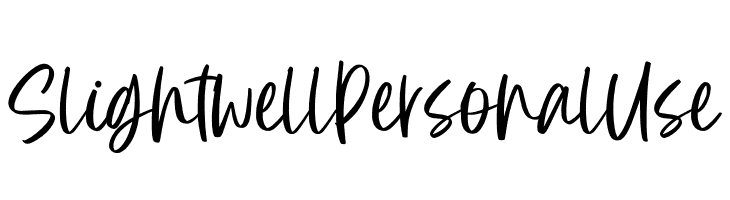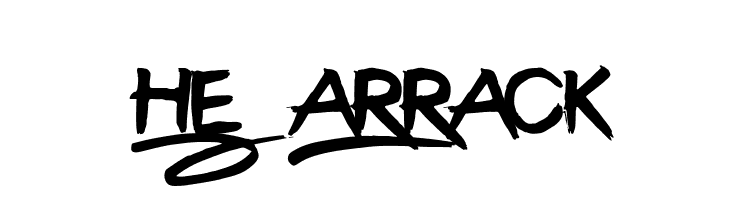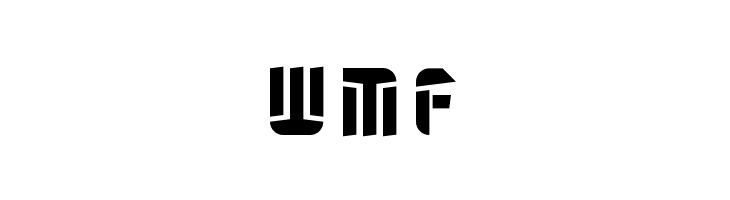
A bold, expressive font with a hand-drawn, graffiti-like style.
A playful, bold font with smooth, rounded characters and dynamic stroke variations.
An elegant, flowing script font with intricate, looping letterforms.
A fluid and elegant script font with a handwritten feel.
A bold, vintage-style font with rounded edges and a retro feel.
An elegant italic font with smooth curves and high contrast, perfect for sophisticated designs.
A playful, bubble-like font with bold, rounded edges and a three-dimensional outline.
A modern cursive font with elegant, flowing letterforms and moderate contrast.
A modern, hollow geometric font with sharp, angular edges.